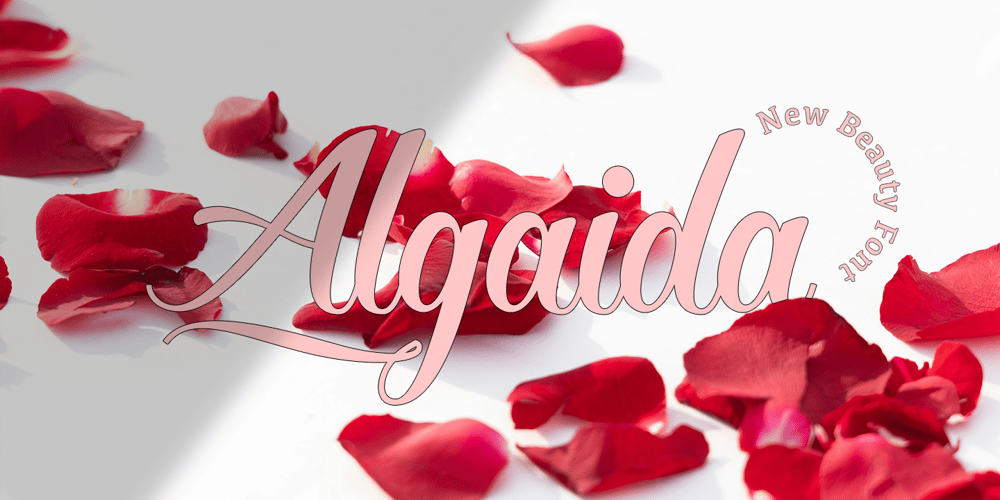
Algaida Font Family was designed by Hajid Hikmatiyar and published by Hikhcreative. Algaida contains 1 styles and family package options. Algaida is a beautiful modern script font with beginning and ending swashes, All characters that add more beautiful and aesthetic fonts to perfect your extraordinary project.